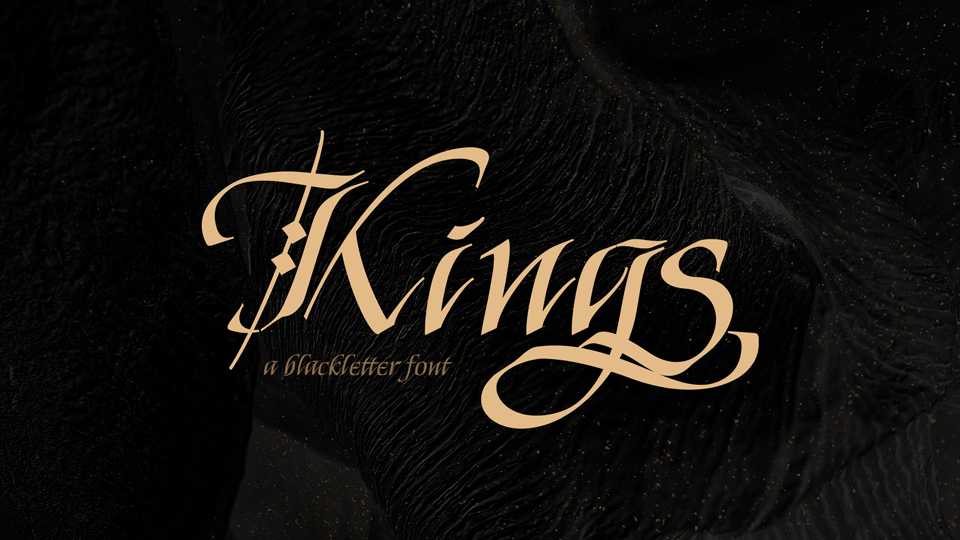
Download Kings font, a refined calligraphic typeface inspired by the blackletter type. Elegant and aesthetic, Kings font brings back the charm of classic handwritten typography.